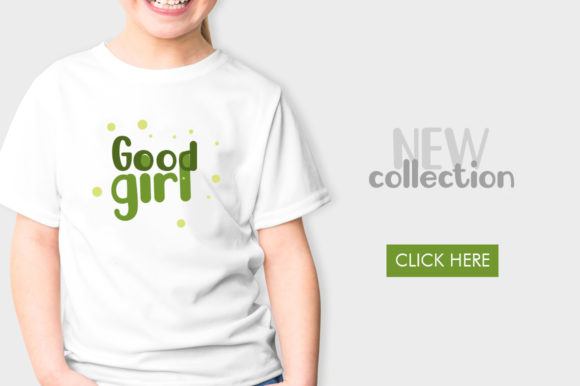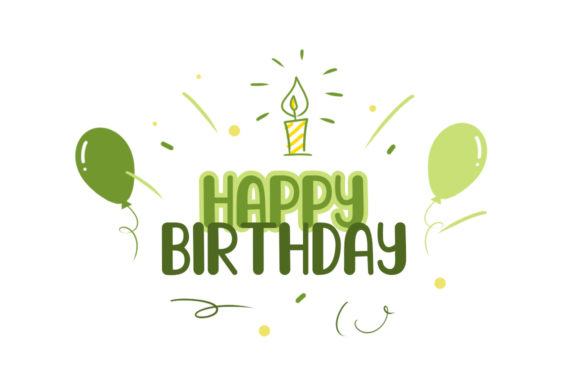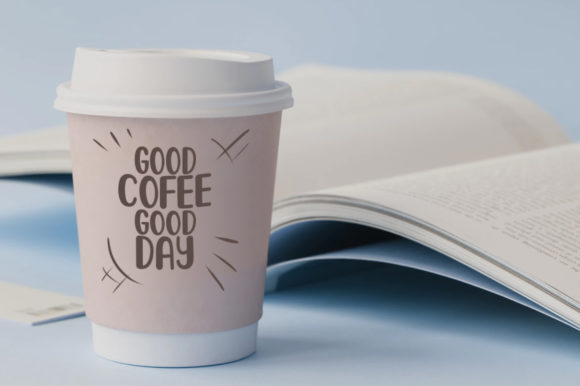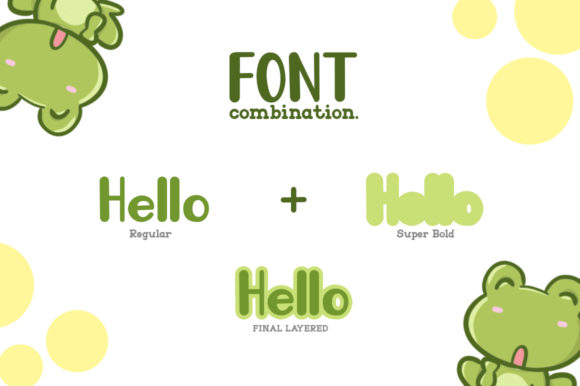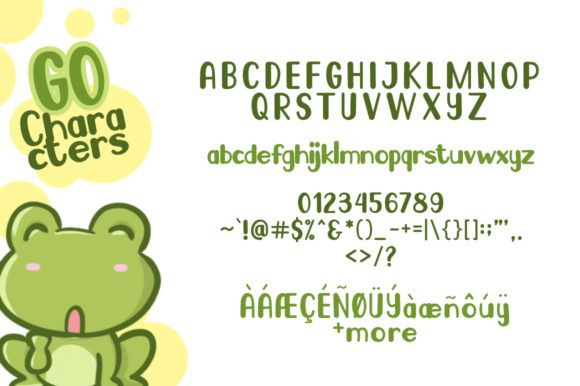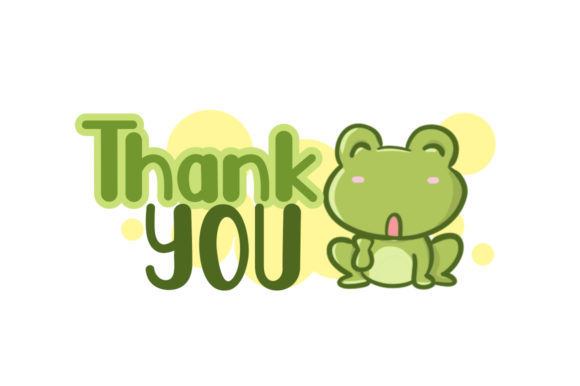
Introducing the Go Frog Font: A Fun and Versatile Display Typeface
Are you tired of using the same old fonts for your design projects? Look no further than the Go Frog Font, a fun and versatile display typeface that’s perfect for adding a touch of personality to your work. In this article, we’ll take a closer look at the Go Frog Font, its features, and how you can use it to elevate your designs.
A Font with Personality
The Go Frog Font is a display typeface that’s designed to make a statement. With its playful and quirky vibe, it’s perfect for designers who want to add a bit of whimsy to their work. The font comes in two different styles: regular and super bold, giving you plenty of options for creating visual interest and hierarchy in your designs.
Key Features of the Go Frog Font
- Two Style Options: The Go Frog Font comes in two style options: regular and super bold. This allows you to create visual interest and hierarchy in your designs, making it perfect for titles, headings, and emphasis text.
- Awesome Characters: The font includes a range of awesome characters that are sure to add a touch of personality to your designs. From letters and numbers to punctuation and symbols, the Go Frog Font has everything you need to create unique and eye-catching text.
- Perfect for a Variety of Projects: The Go Frog Font is versatile and can be used for a wide range of projects, including name cards, posters, logos, magazines, covers, and even large-scale artwork.
Uses for the Go Frog Font
The Go Frog Font is perfect for designers and crafters who want to add a touch of personality to their work. Here are just a few ideas for how you can use this fun and versatile font:
- Name Cards: Use the Go Frog Font to create unique and eye-catching name cards for events, conferences, and meetings.
- Posters: Create bold and attention-grabbing posters using the super bold style of the Go Frog Font.
- Logos: Use the Go Frog Font to create a fun and playful logo for your business or brand.
- Magazines and Covers: Add a touch of personality to your magazine or publication with the Go Frog Font.
- Large-Scale Artwork: Use the Go Frog Font to create large-scale artwork, such as billboards, signage, and murals.
Why Choose the Go Frog Font?
So why choose the Go Frog Font over other display typefaces? Here are just a few reasons:
- Unique and Eye-Catching: The Go Frog Font is a unique and eye-catching font that’s sure to grab attention.
- Versatile: The font is versatile and can be used for a wide range of projects.
- Easy to Read: Despite its playful vibe, the Go Frog Font is easy to read, making it perfect for use in a variety of contexts.
In conclusion, the Go Frog Font is a fun and versatile display typeface that’s perfect for designers and crafters who want to add a touch of personality to their work. With its two style options, awesome characters, and versatility, it’s an excellent choice for a wide range of projects. Whether you’re creating name cards, posters, logos, or large-scale artwork, the Go Frog Font is sure to help you create unique and eye-catching designs.